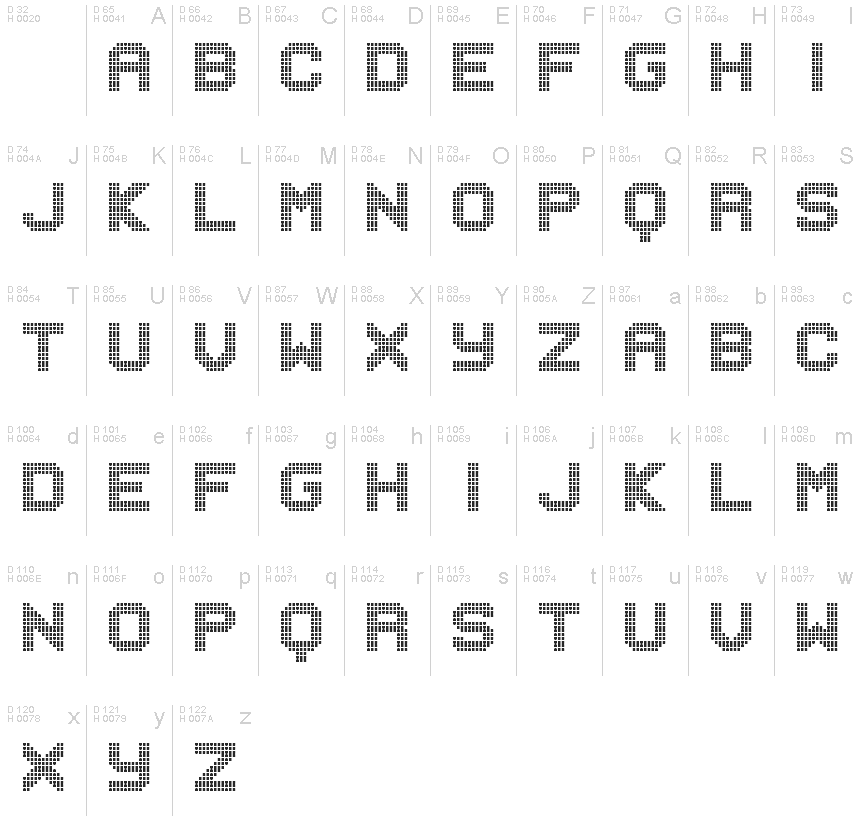
MUSICNET Regular
Musicnet, a captivating digital display font crafted by Geronimo Font Studios, exudes a bold and modern aesthetic. Its sharp, geometric letterforms and defined edges create a striking visual impact, conveying a sense of technological sophistication and digital elegance. The font's bold weight and clean lines lend it a powerful presence, making it an alluring choice for a wide range of design applications.
Musicnet's versatility shines through, making it a compelling selection for eye-catching titles, impactful headings, and attention-grabbing branding. Its strong character and distinctive style make it an excellent fit for projects seeking to evoke a futuristic, tech-savvy, or contemporary vibe, such as in the realms of digital media, technology, and modern product design.